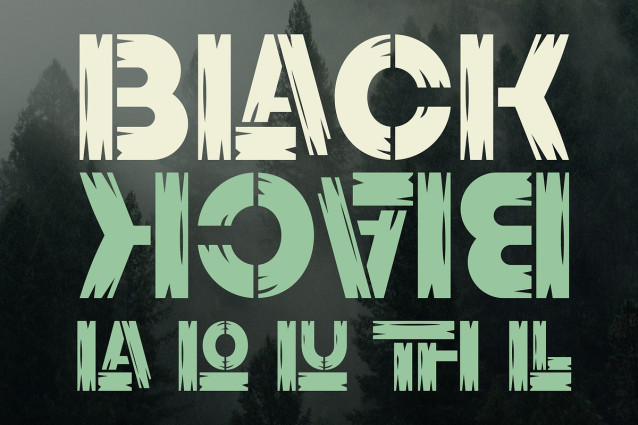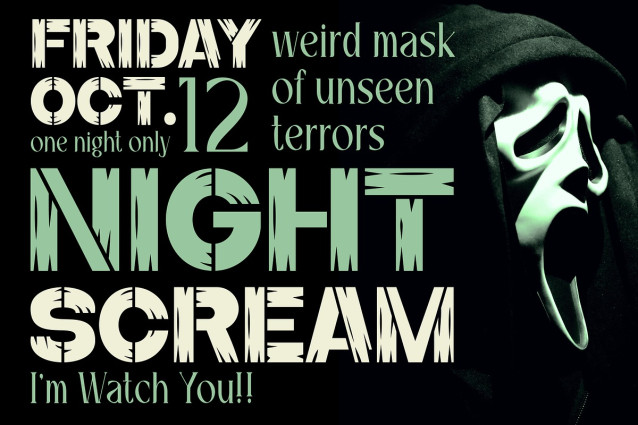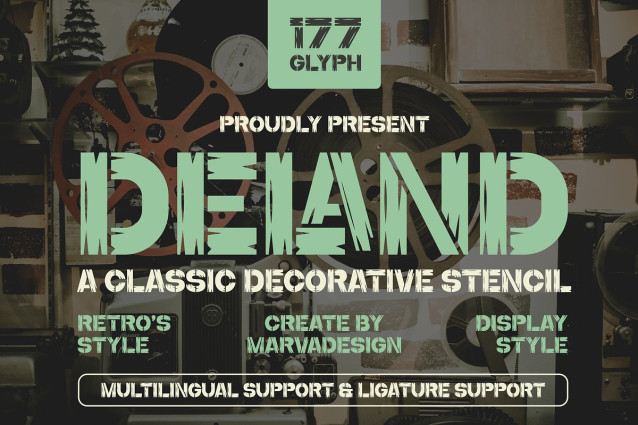
Deland Display Font
Deland Display Font – Modern Font is a bold and authentic display font. The font is suitable for any branding project like logo, Template Design, Product and many more. outstanding in a wide range of contexts.